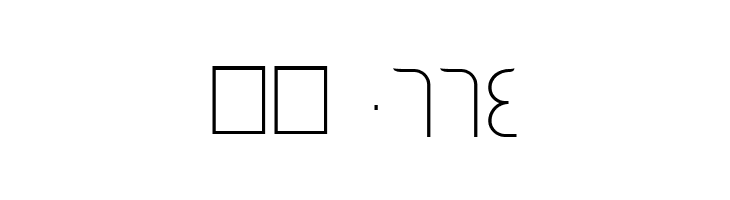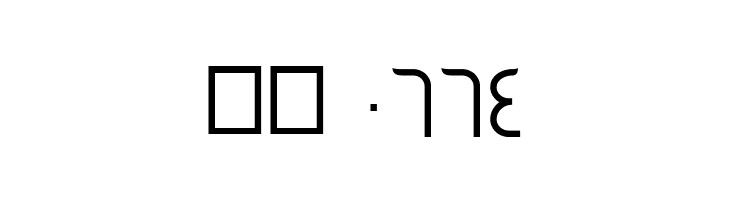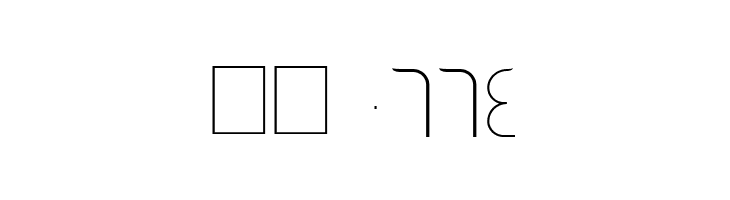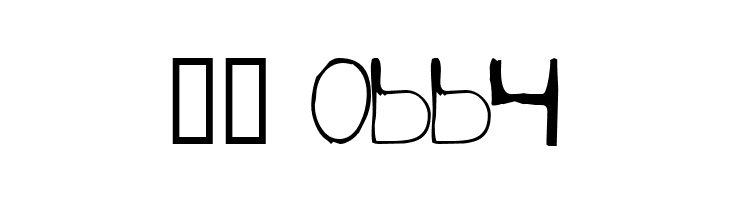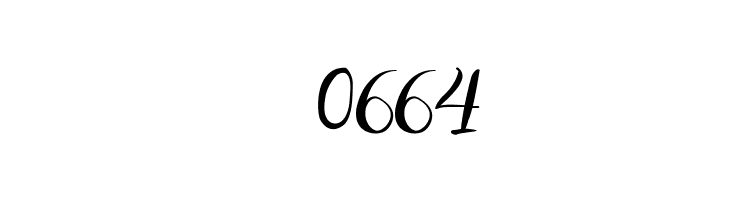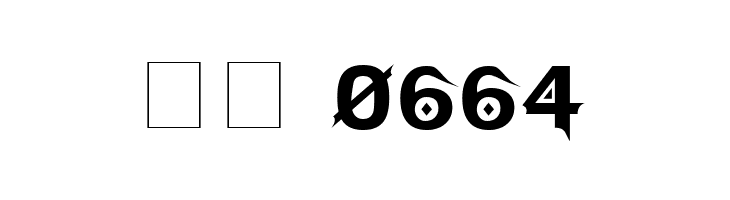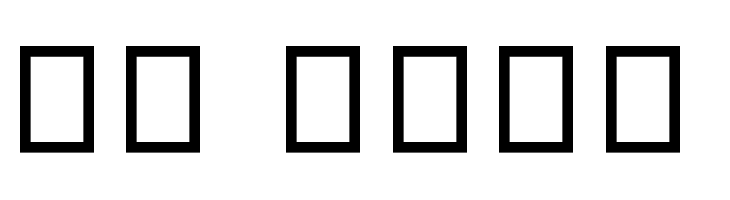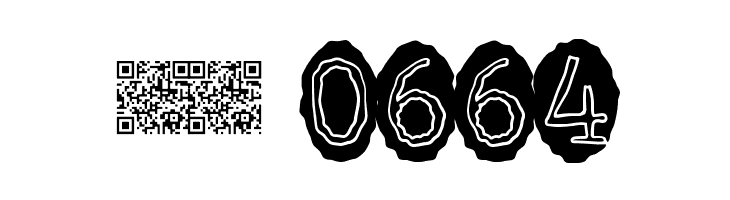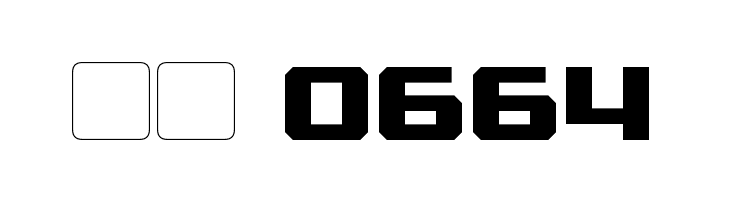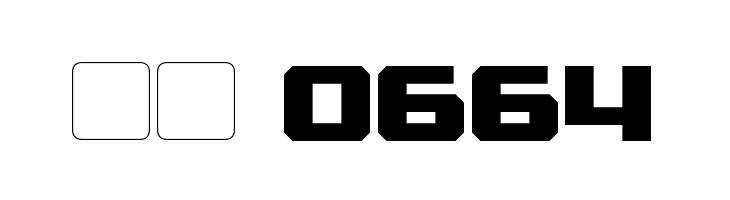
An oblique, extended font with a mechanical and industrial style.
A modern, oblique font with a mechanical style and consistent stroke width.
A bold, mechanical outline font with a modern industrial feel.
A mechanical, outlined, and oblique font with a modern industrial feel.
A geometric, angular font with a futuristic and industrial design.
A bold, geometric font with a futuristic and industrial style.
A bold, geometric font with a futuristic and industrial design.
A bold, italicized font with a futuristic, mechanical design.
A bold, italic, futuristic font with sharp, angular lines and a dynamic style.
A futuristic, angular font with bold, geometric shapes and a mechanical feel.
A bold, angular font with a futuristic, robotic design.
A bold, angular, and italicized font with a futuristic and dynamic style.
A modern, elegant font with high contrast and sharp serifs.
A bold, hand-drawn font with a rough, edgy style.
A bold, edgy font with sharp angles and heavy weight, perfect for impactful designs.
A bold, 3D block font with a playful, decorative style and dotted texture.
A bold, three-dimensional font with strong shadow effects and a geometric design.
A bold, graffiti-inspired font with dynamic, sweeping strokes and artistic flair.
A bold, modern font with geometric shapes and clean lines.
A sleek, extra light font with a modern and minimalist design.
A modern, light-weight font with a clean and elegant design.
A modern, clean font with uniform stroke width and geometric shapes.
A modern, thin, and minimalist font with clean lines and a sleek appearance.
A distressed, grungy font with a bold, hand-drawn appearance.
A playful handwritten font with a whimsical and fluid style.
A whimsical and decorative font with swirling, interconnected strokes.
A flowing, elegant script font with interconnected letters and bold strokes.
An elegant, flowing script font with intricate loops and swirls.
A graceful script font with flowing, cursive strokes and elegant flourishes.
A fluid and elegant handwritten font with smooth, flowing strokes.
A playful, melting-style font with bold, outlined characters on a black background.